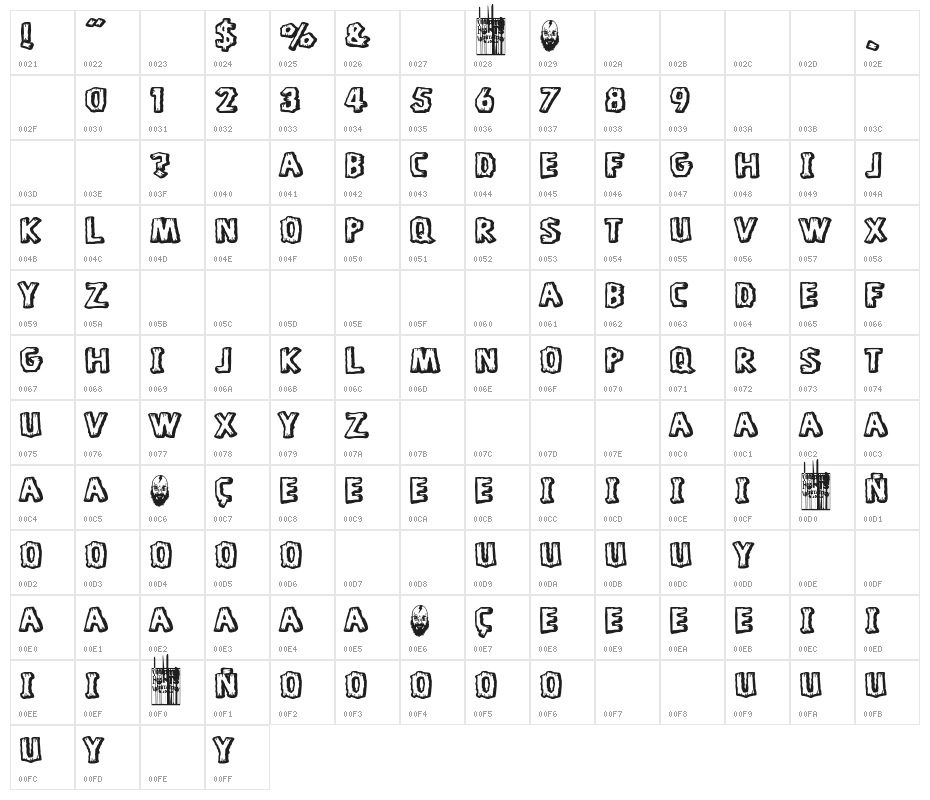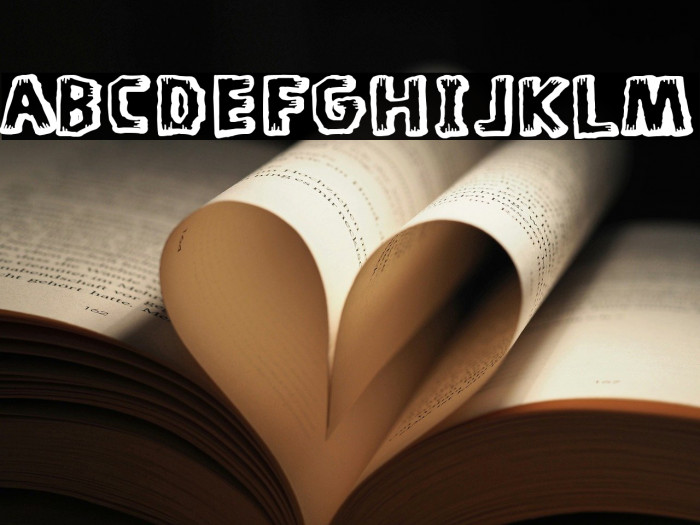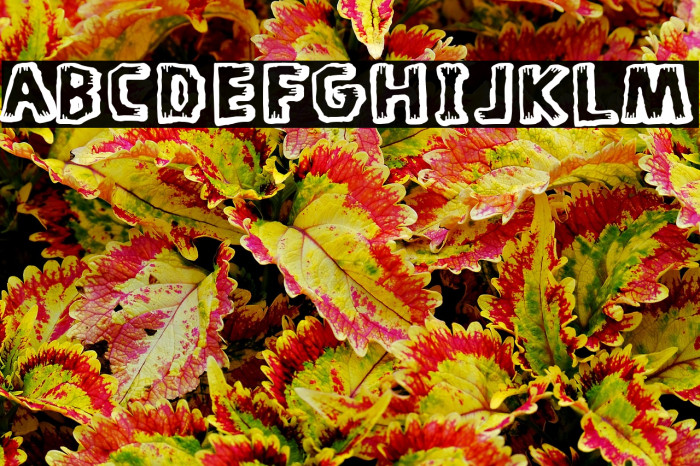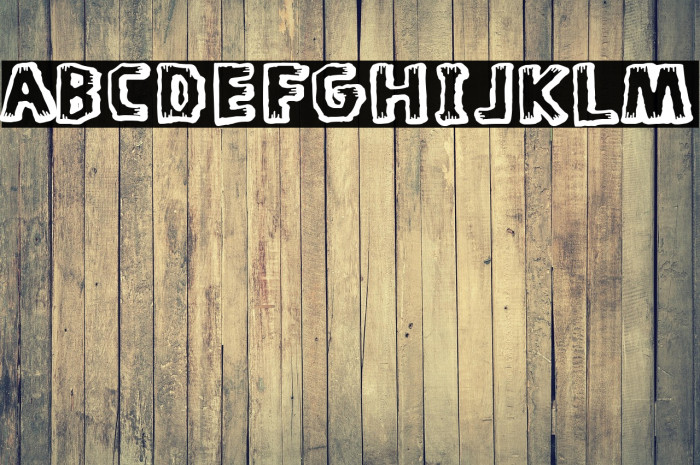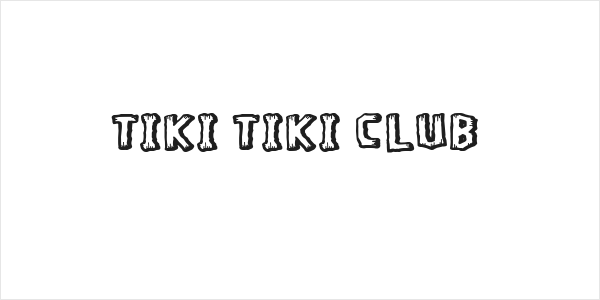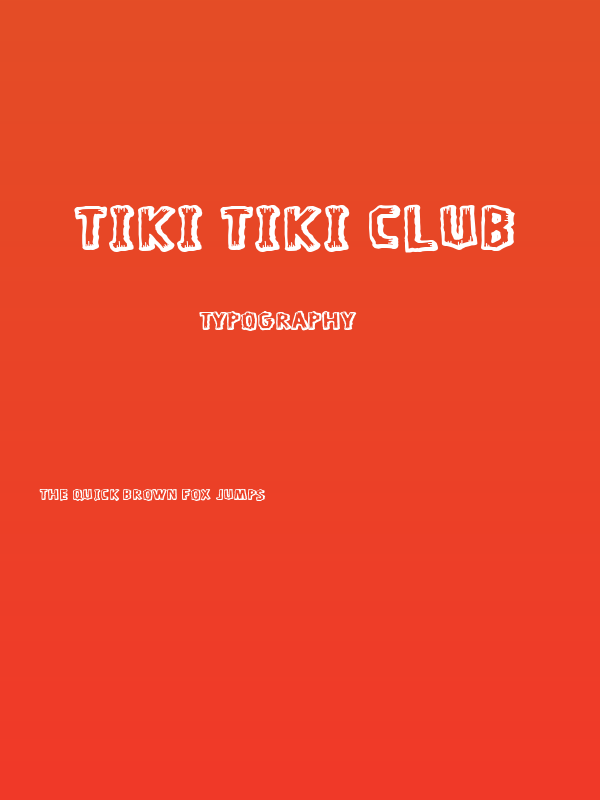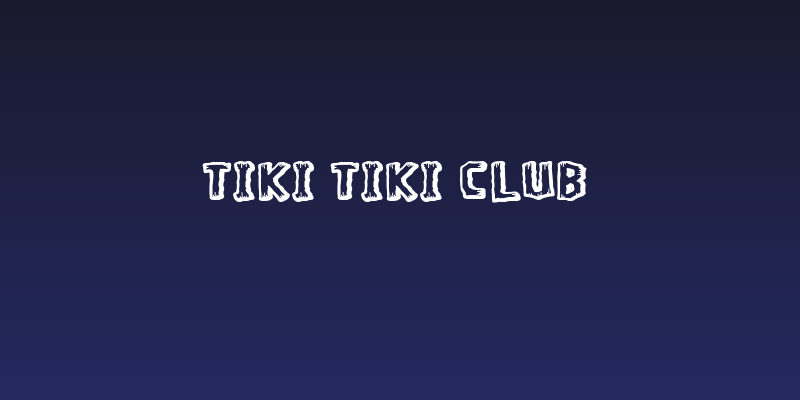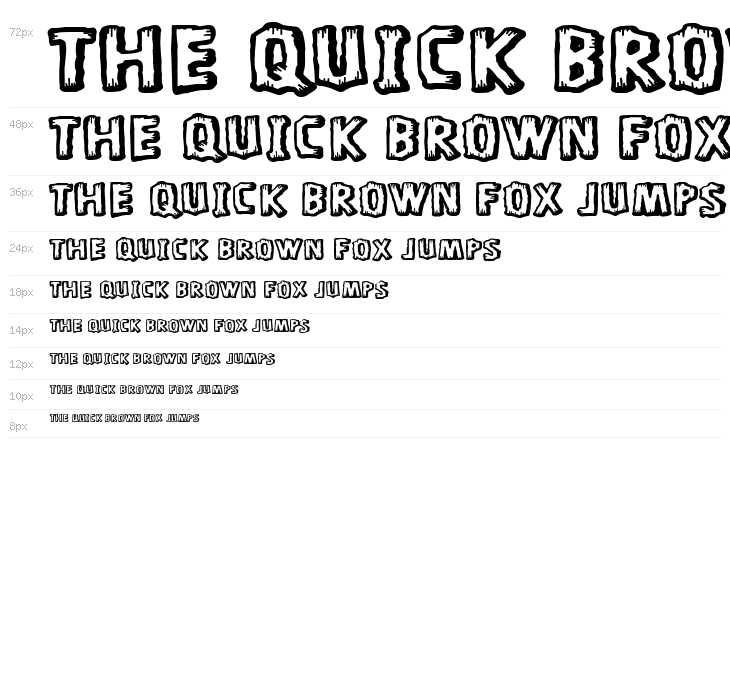
Tiki Tiki Club Font
Tiki Tiki Club Description
This font features a bold, rugged design with a hand-drawn aesthetic. Each character is outlined with a rough, uneven edge, giving it a dynamic and energetic appearance. The letters are uppercase and lowercase, with numerals and a selection of special characters. The style is reminiscent of woodcut or linocut prints, adding a tactile, organic feel. The bold strokes and irregular contours create a sense of movement and vitality, making it ideal for projects that require a lively and informal touch.